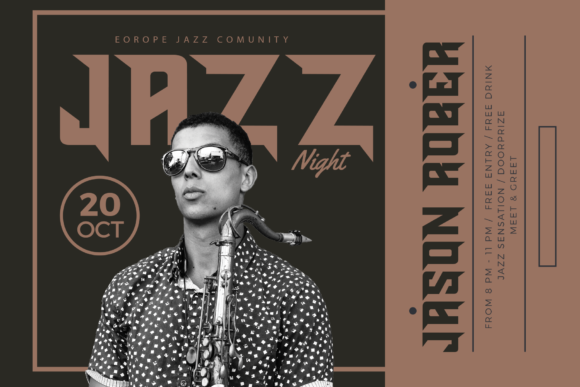
Introducing Blades Font: A Bold and Vintage Styled Display Font
Are you a crafter or designer looking for a font that can add a touch of elegance and sophistication to your designs? Look no further than Blades Font, a bold and vintage styled display font created by Kong Font Studio. In this article, we’ll take a closer look at the features and benefits of Blades Font, and explore how it can be used to elevate your designs.
What is Blades Font?
Blades Font is a bold and vintage styled display font that is perfect for a variety of design applications. Its unique and eye-catching design makes it ideal for use in product packaging, branding projects, magazine covers, social media, and wedding designs. The font is designed to be versatile and can be used to express words above a background, making it a great choice for designers and crafters who want to add a touch of personality to their designs.
Features of Blades Font
Blades Font has a number of features that make it a great choice for designers and crafters. Some of its key features include:
- Bold and Vintage Style: Blades Font has a bold and vintage style that is sure to grab attention. Its unique design makes it perfect for use in display text and headings.
- Versatility: Blades Font is a versatile font that can be used in a variety of design applications, from product packaging to social media.
- Easy to Read: Despite its bold style, Blades Font is easy to read, making it perfect for use in designs where you want to make a statement.
Benefits of Using Blades Font
There are many benefits to using Blades Font in your designs. Some of the key benefits include:
- Adds Elegance and Sophistication: Blades Font can add a touch of elegance and sophistication to your designs, making it perfect for use in high-end branding and packaging.
- Stand Out from the Crowd: The unique and eye-catching design of Blades Font makes it perfect for use in designs where you want to stand out from the crowd.
- Perfect for Crafters and Designers: Blades Font is a great choice for crafters and designers who want to add a touch of personality to their designs.
Examples of Blades Font in Use
Blades Font can be used in a variety of design applications, including:
- Product Packaging: Use Blades Font to add a touch of elegance and sophistication to your product packaging.
- Branding Projects: Use Blades Font to create bold and eye-catching branding projects that stand out from the crowd.
- Magazine Covers: Use Blades Font to create attention-grabbing magazine covers that showcase your style and creativity.
- Social Media: Use Blades Font to add a touch of personality to your social media posts and graphics.
- Wedding Designs: Use Blades Font to create beautiful and elegant wedding designs, such as wedding invitations and decorations.
Blades Font is a bold and vintage styled display font that is perfect for crafters and designers. Its unique and eye-catching design makes it ideal for use in a variety of design applications, from product packaging to social media. With its versatility, ease of use, and elegant style, Blades Font is a great choice for anyone looking to add a touch of sophistication and personality to their designs.